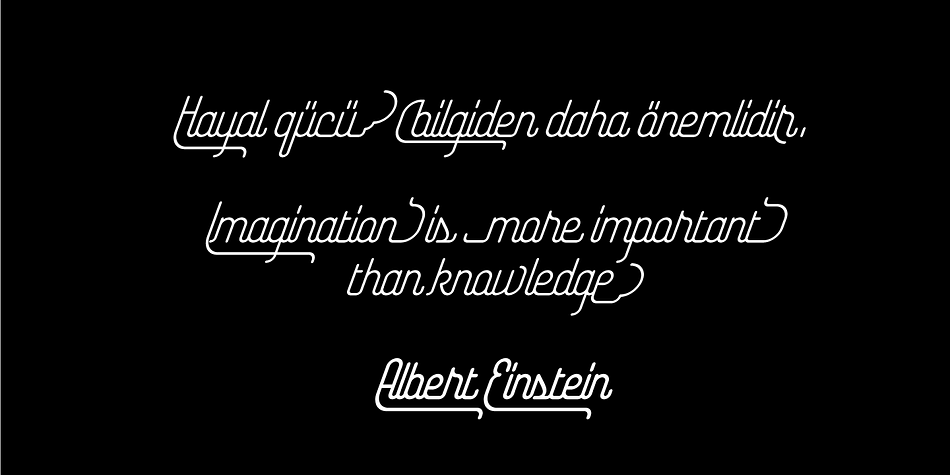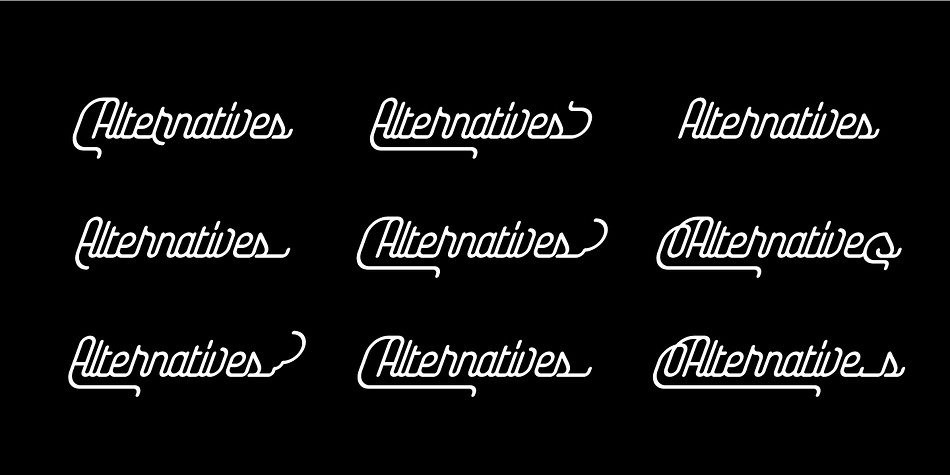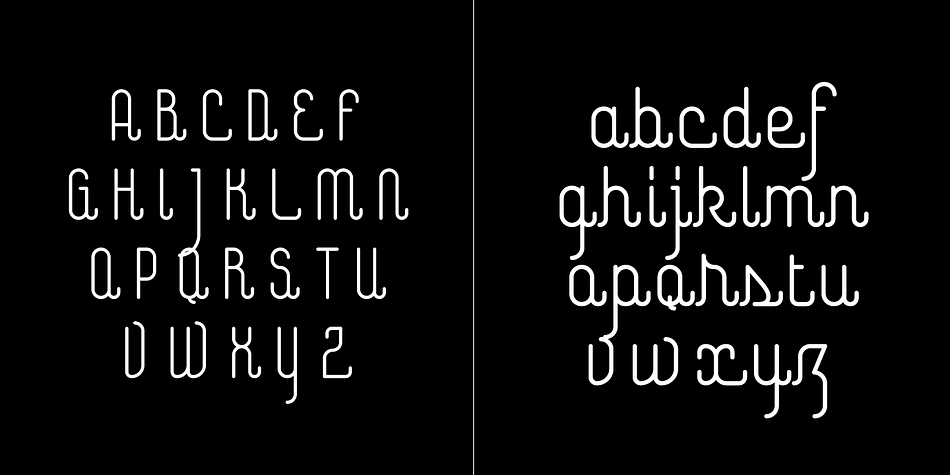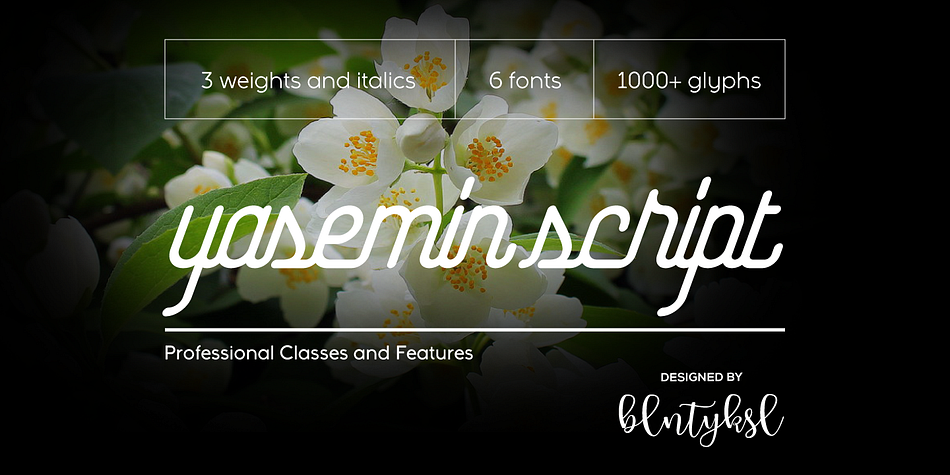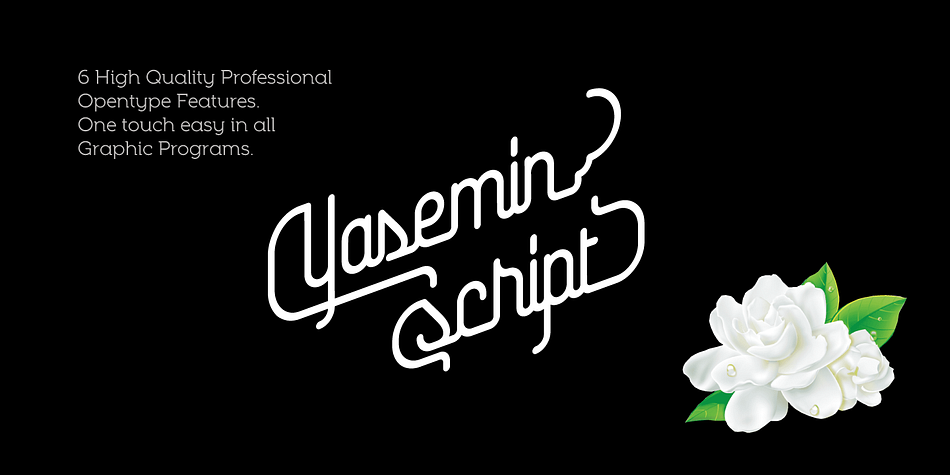
Yasemin is a script font family. This typeface has six styles and was published by Bülent Yüksel.
My wife’s name is Yasemin. After building this type face, I wanted to honor it with my wife’s name. I think it fully reflects the character I had in mind. I needed such a character and tried to create ornaments connected to the glyphs. I hope you enjoy this type face!
Yasemin is an OpenType font that contains 1045 glyphs, ligatures, alternates, startings, endings, a wide range of latin languages and a set of ornaments. It also contains words specially designed to use in advertising slogan, stationery for weddings, birthdays, etc.
Try using Yasemin at a 20º angle so that the slanted strokes and ornaments become perfectly vertical. Having the decorative ligatures feature (dlig) activated is a good option to see letters dance.
It is recommended to use this font with the standard ligatures feature (liga) activated. It makes letters ligate perfectly and also improves the space between words.